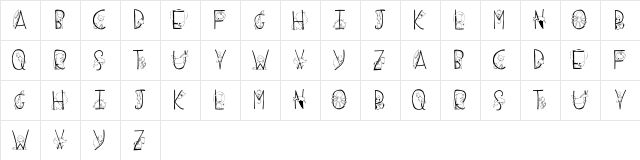
Design Context for erated by
erated by is a composed and adaptable typeface that performs quietly and consistently across a wide range of design contexts.